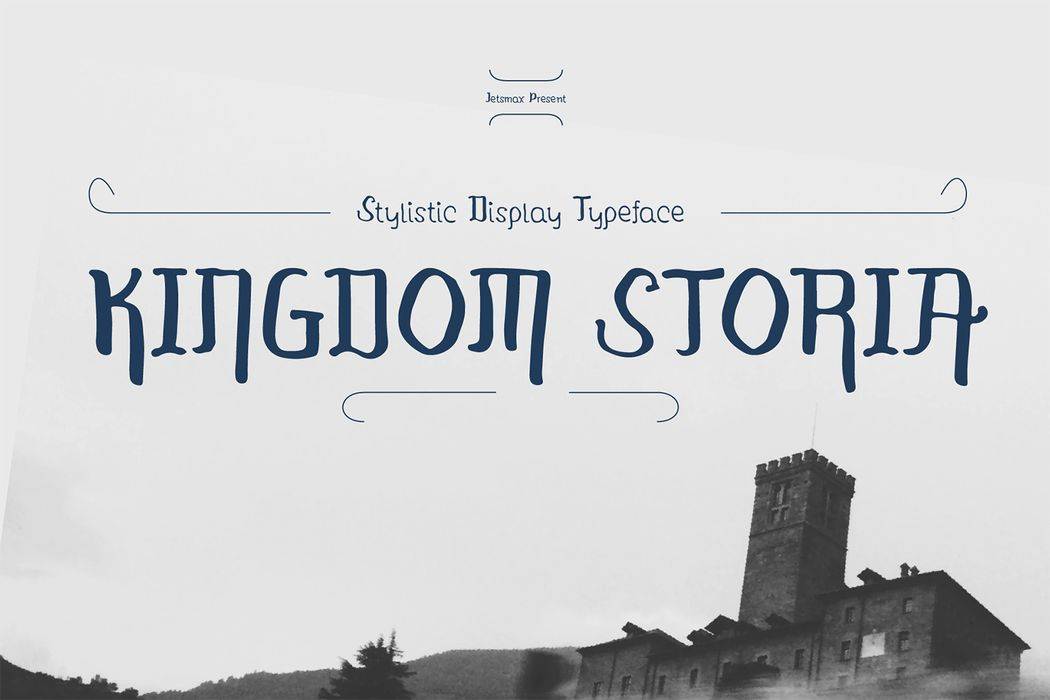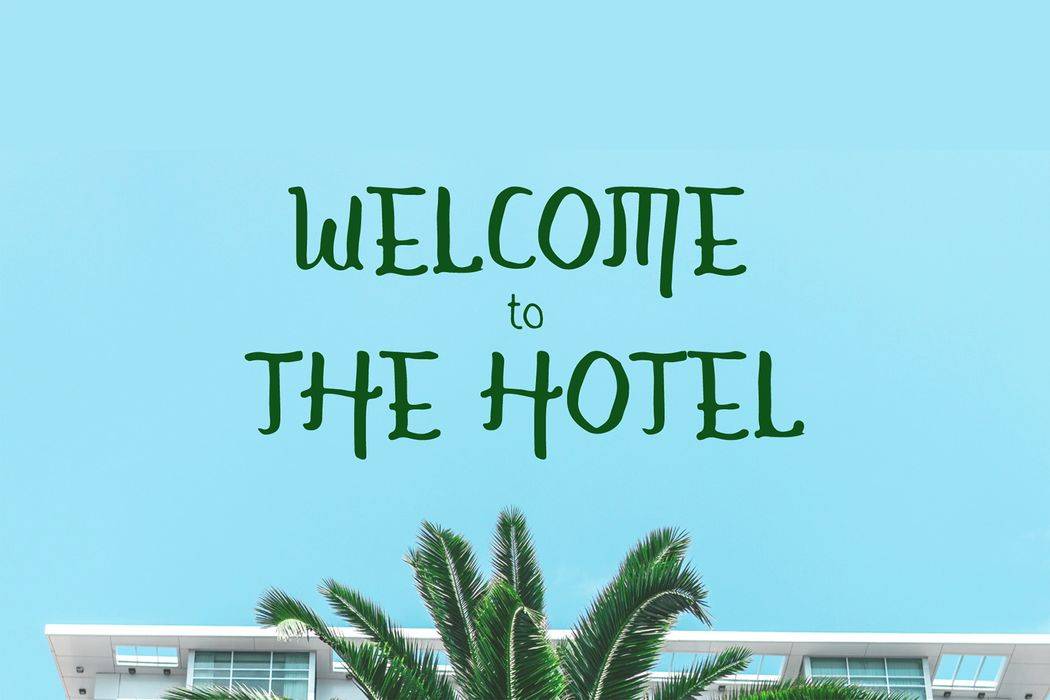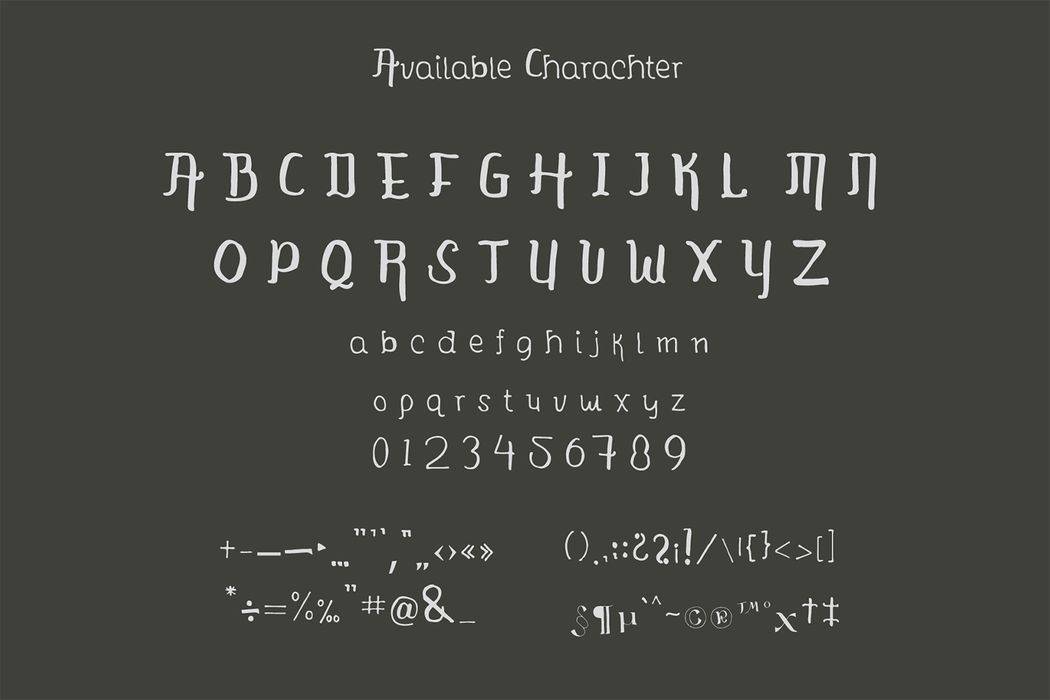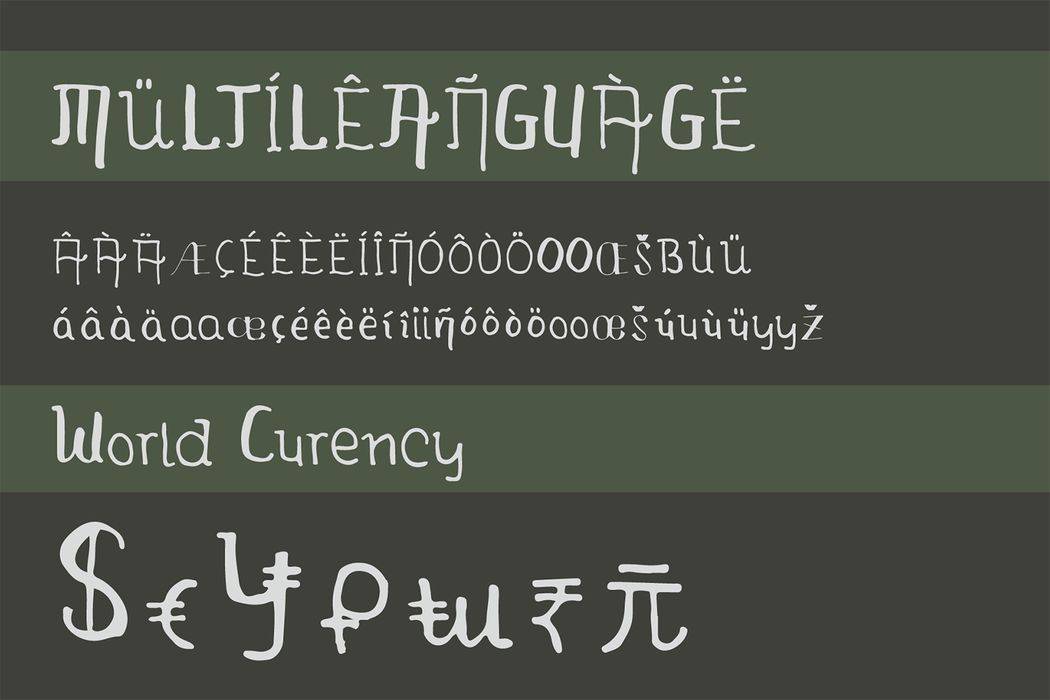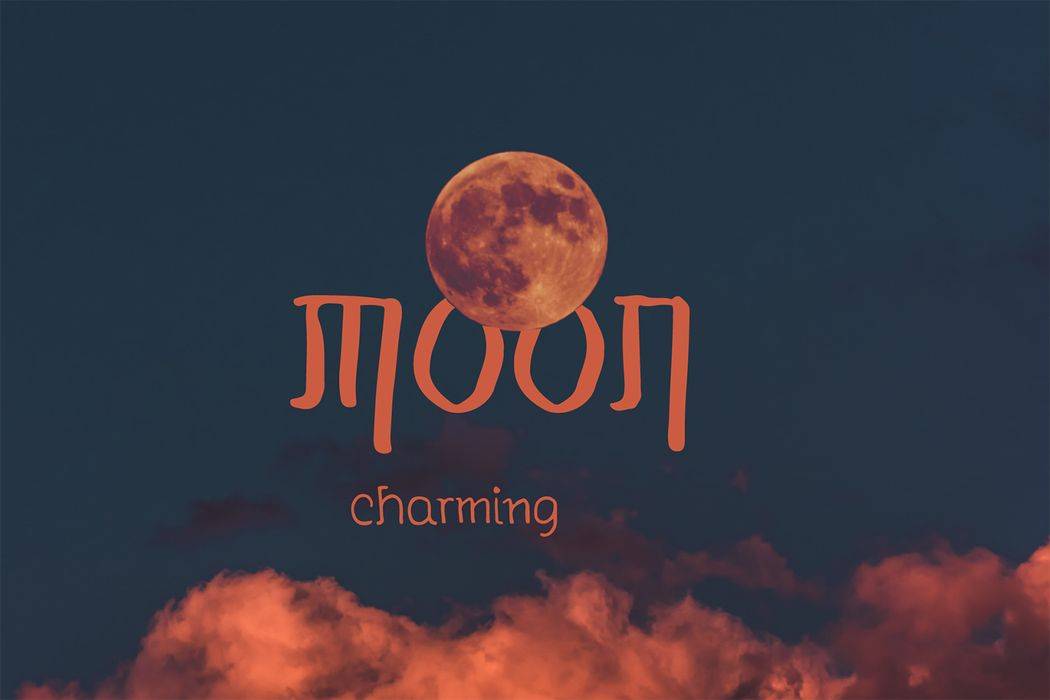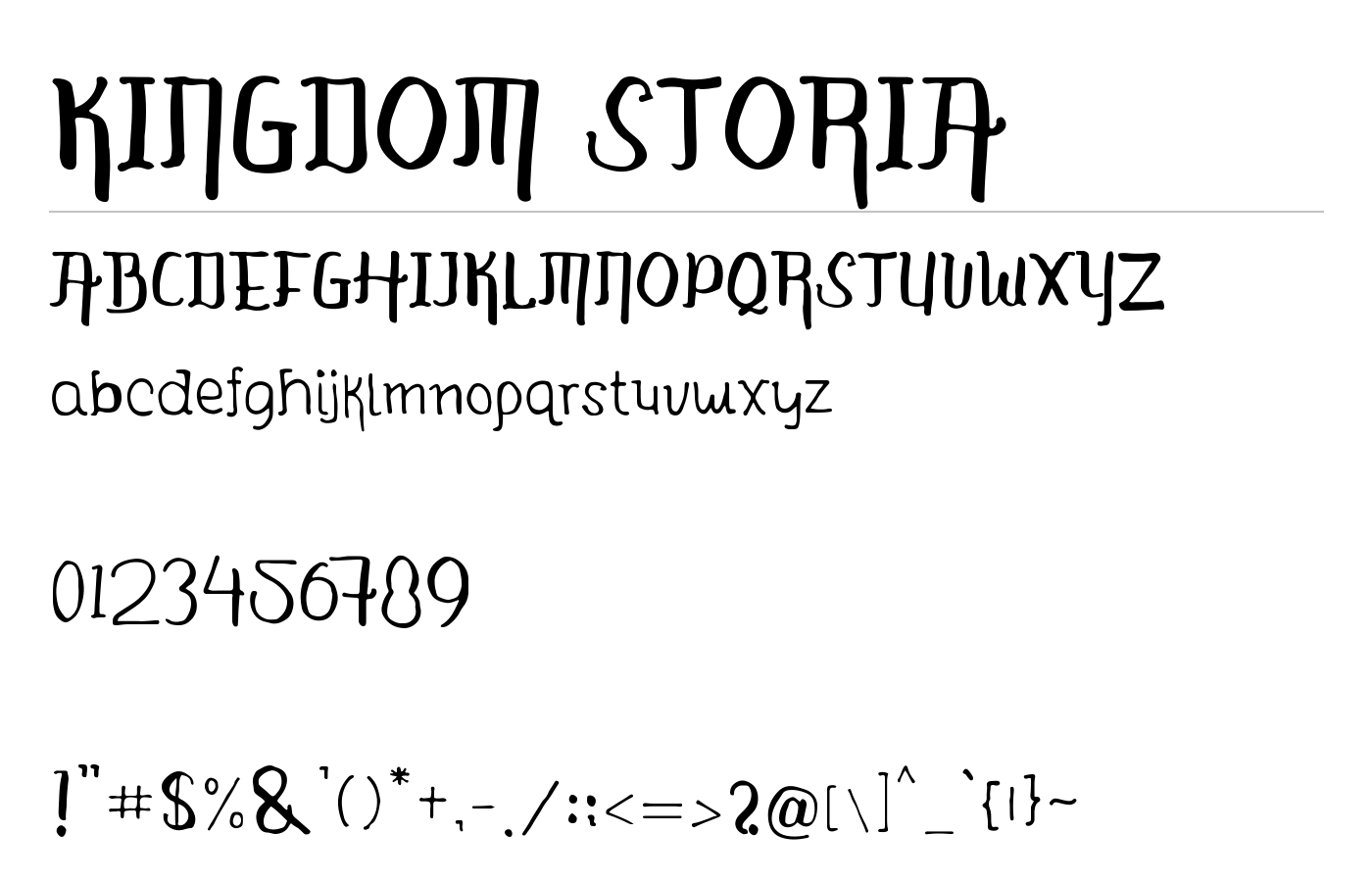
Kingdom Storia is a distinctive serif font with a whimsical, handcrafted feel, characterized by its tall, narrow letterforms and unique, slightly irregular serifs that give it a storybook charm. Its light to regular weight and moderate contrast create a playful yet readable style, perfect for adding a vintage or fantasy touch to creative projects. This font works well for logos, headlines, and themed designs where a touch of personality and elegance is desired without sacrificing clarity.
Kingdom Storia Font
About Kingdom Storia Font
| Font family | Kingdom Storia Font |
| Designer | Khairil Anwar |